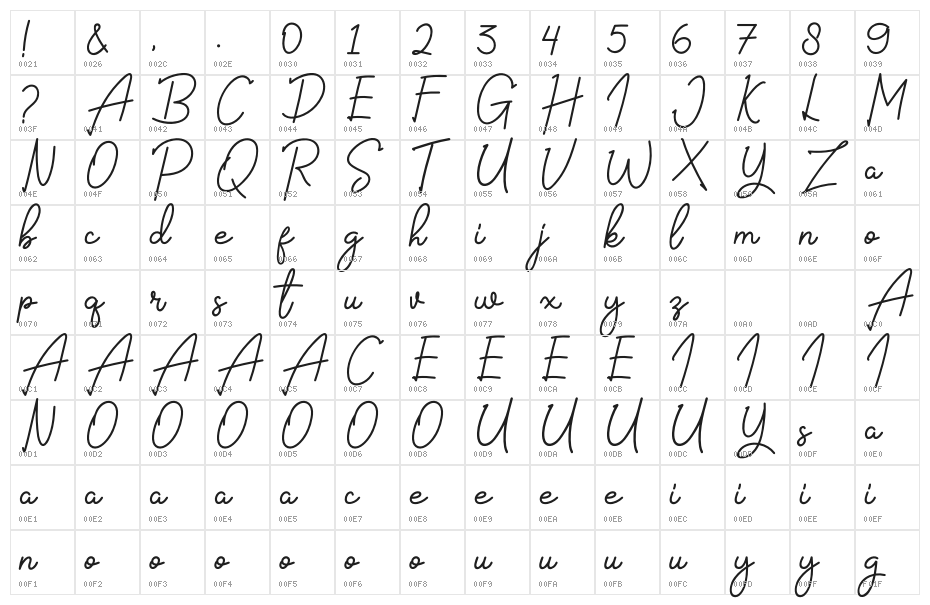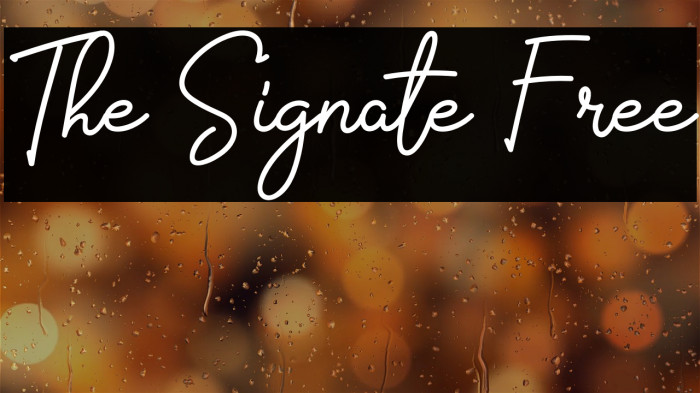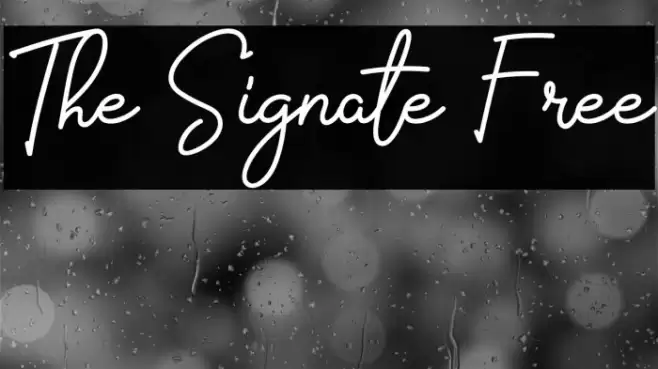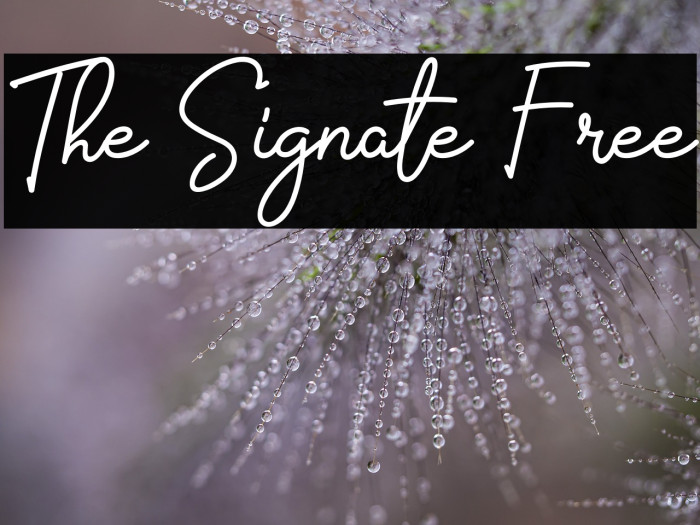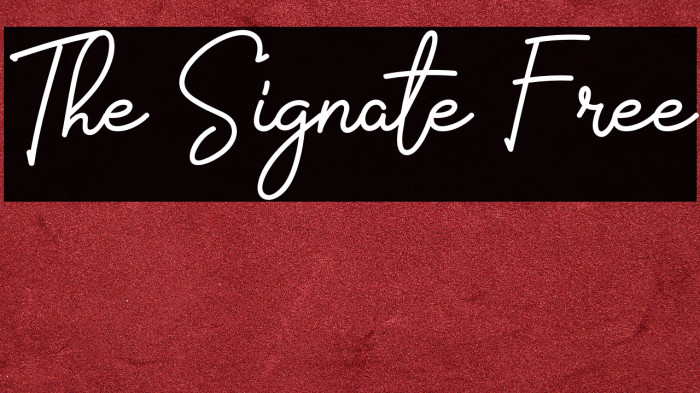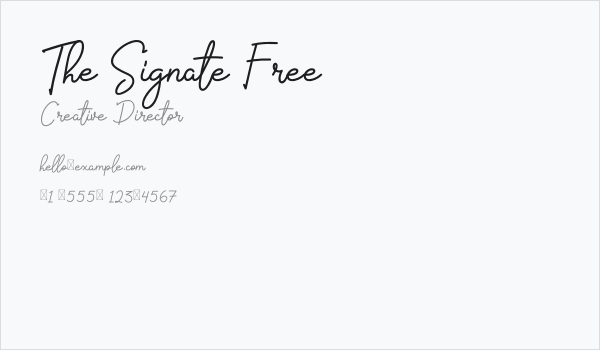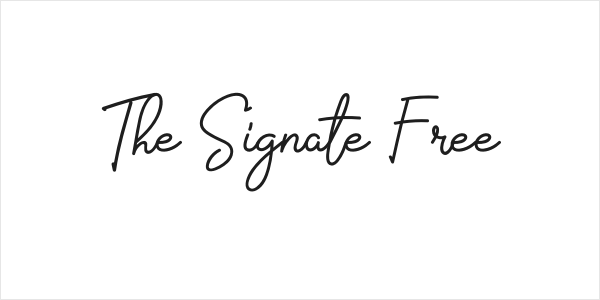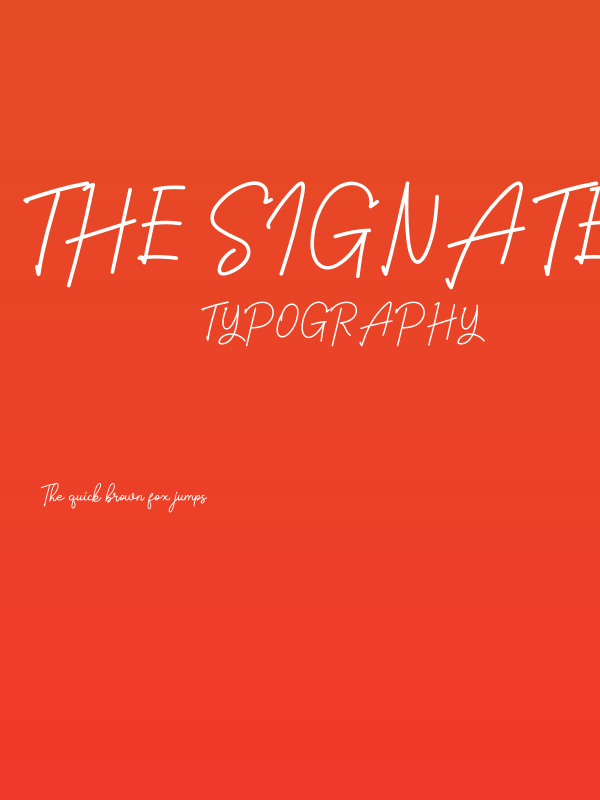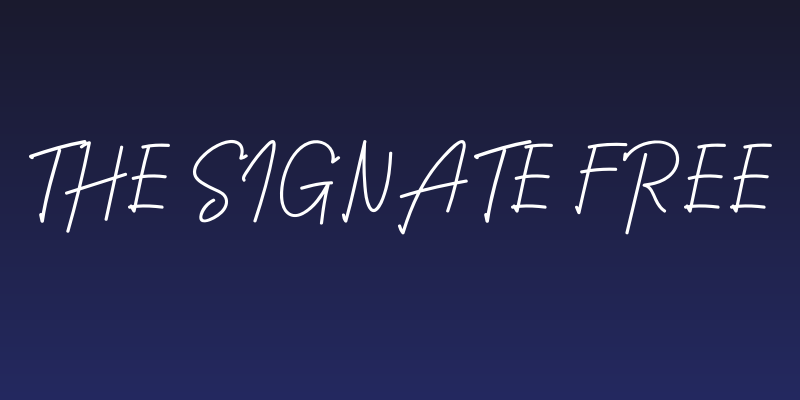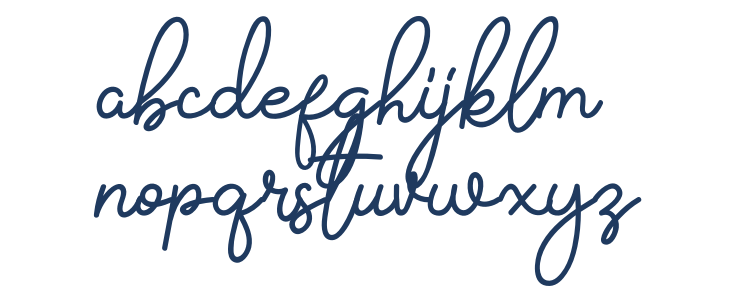
The Signate Free Font
The Signate Free Description
This font features a dynamic and flowing script style, characterized by its elegant and fluid letterforms. The uppercase letters are tall and slender, with a slight slant that adds a sense of motion and grace. The lowercase letters are more connected, creating a cohesive and harmonious appearance. The numerals are consistent with the overall style, maintaining a balance between readability and artistic flair. Special characters are thoughtfully integrated, ensuring versatility in various design contexts. The font's overall aesthetic is both sophisticated and approachable, making it suitable for a wide range of creative applications.
| Proposed Projects | Ideal for wedding invitations, branding, greeting cards, and elegant packaging designs. |